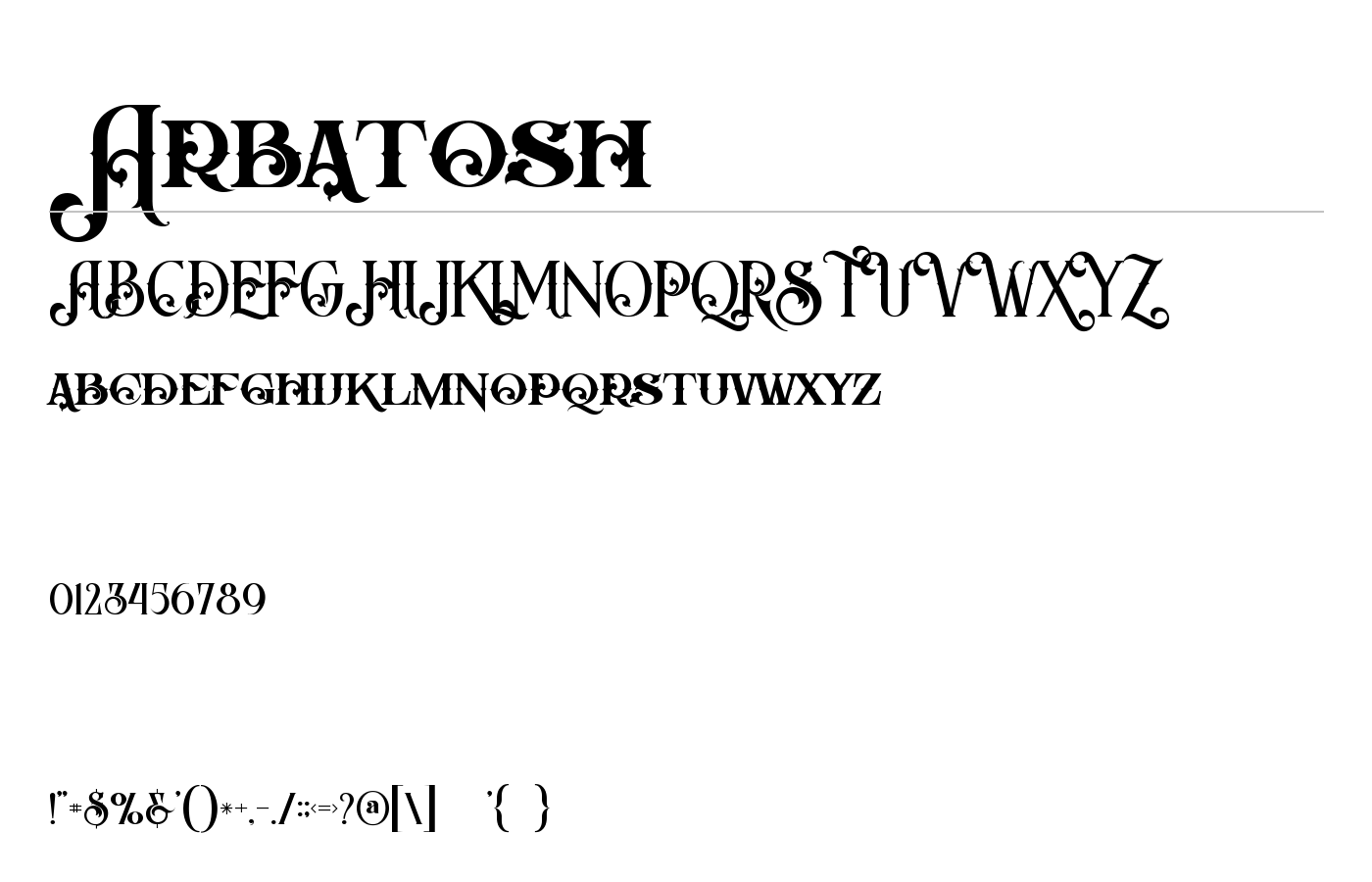
Arbatosh Regular is a decorative serif font with high contrast between thick and thin strokes and intricate, ornamental flourishes that give it a dramatic and vintage-inspired look. Its elegant, detailed letterforms work well for projects that need a touch of sophistication and uniqueness, such as luxury branding, logos, and artistic headlines. This font shines in designs that aim to make a bold statement with an old-world charm.
Arbatosh Regular Font
About Arbatosh Regular Font